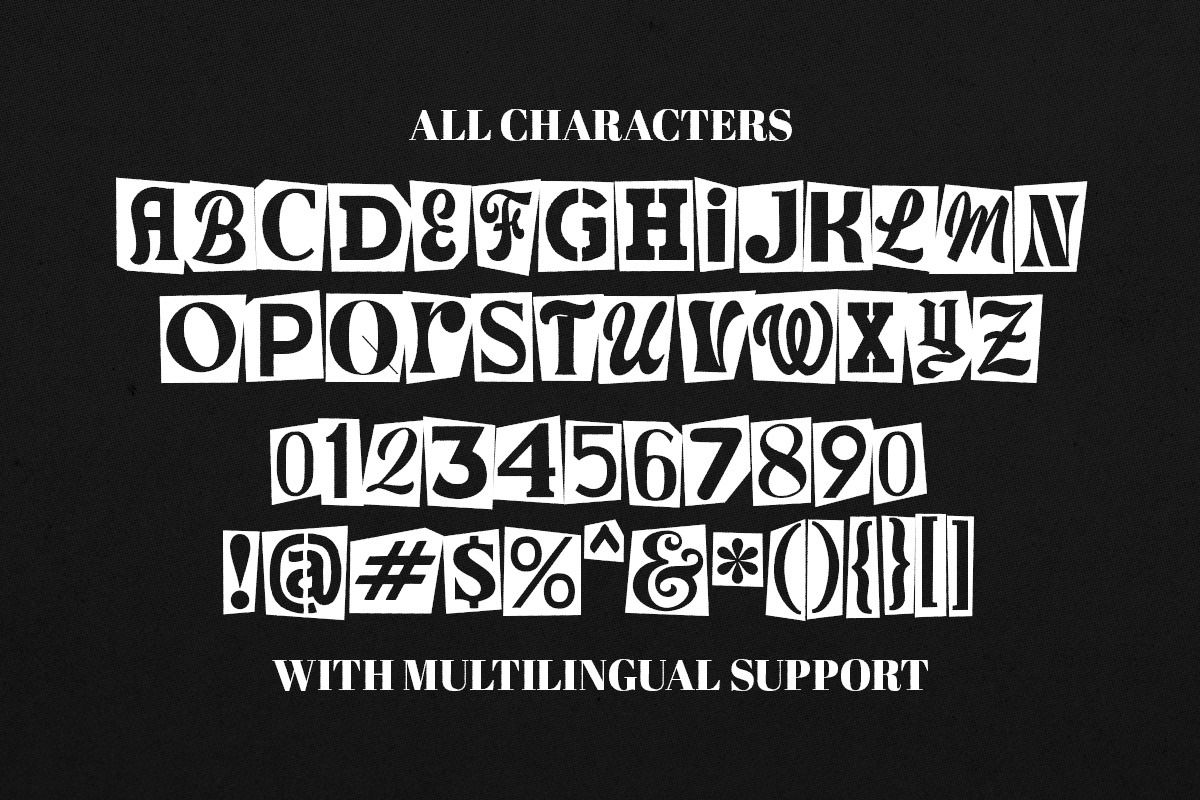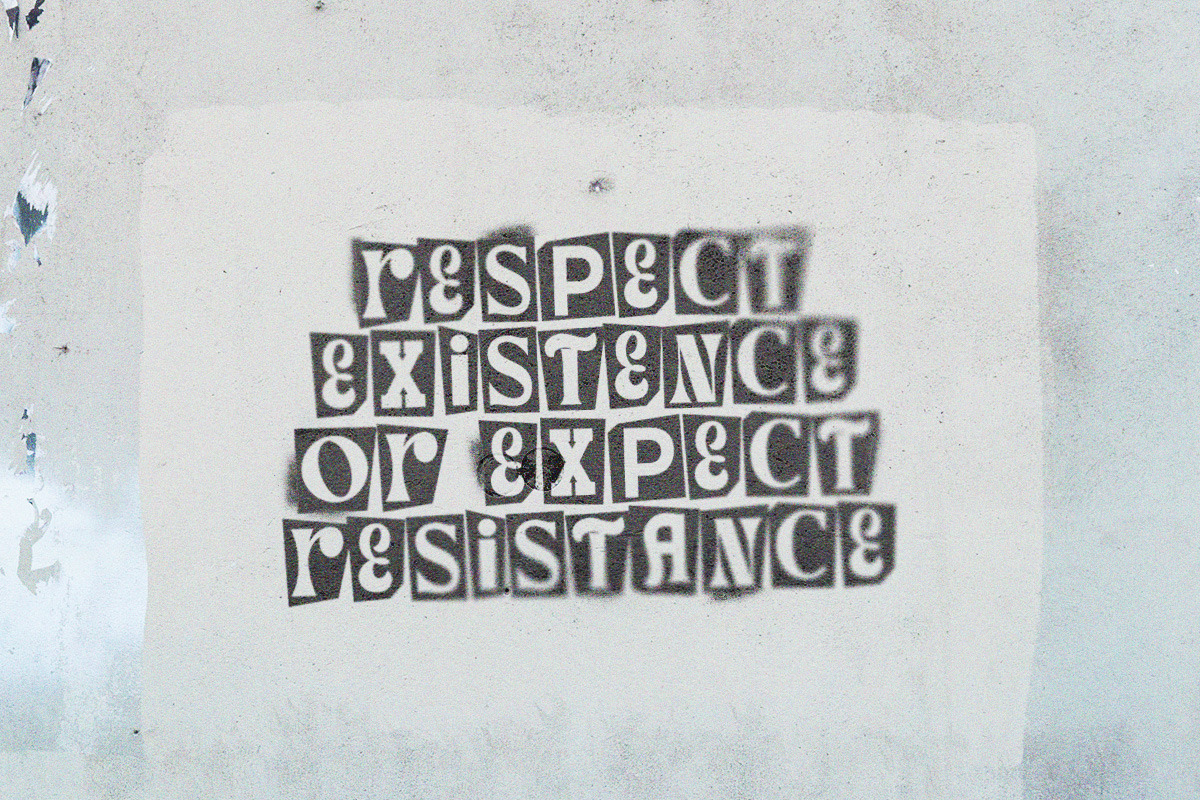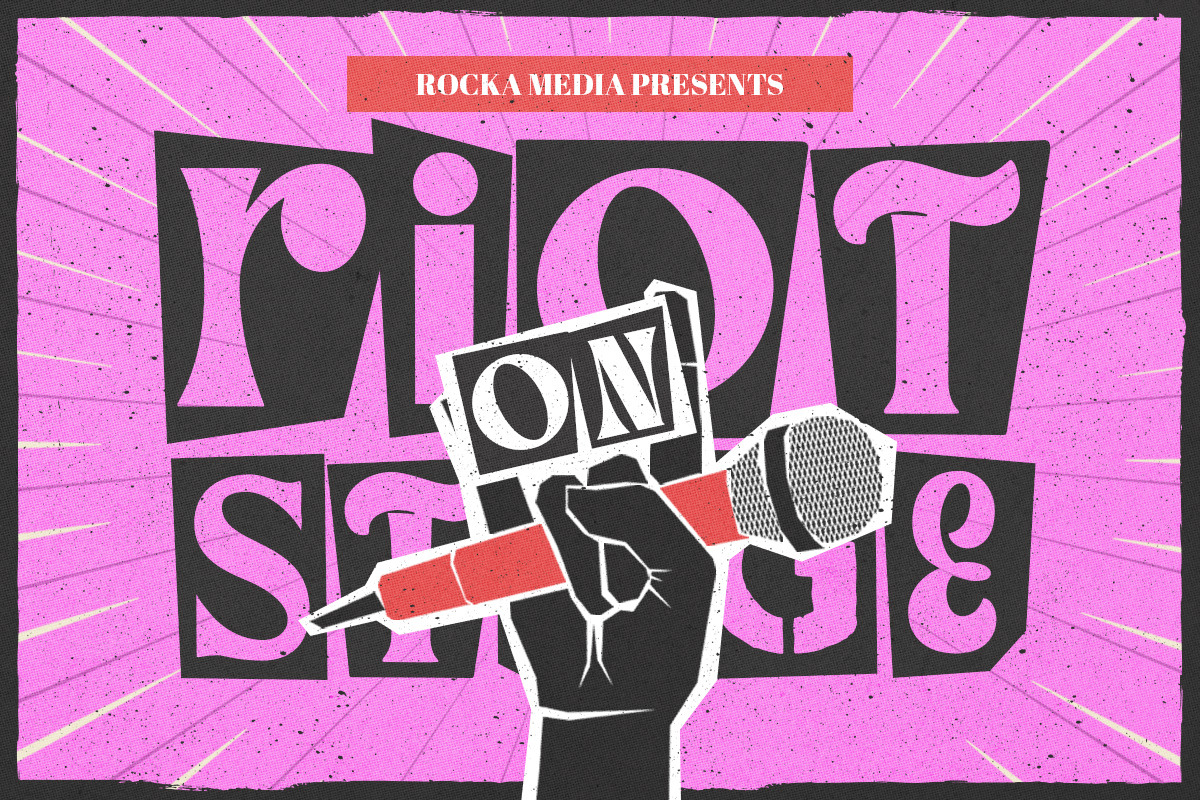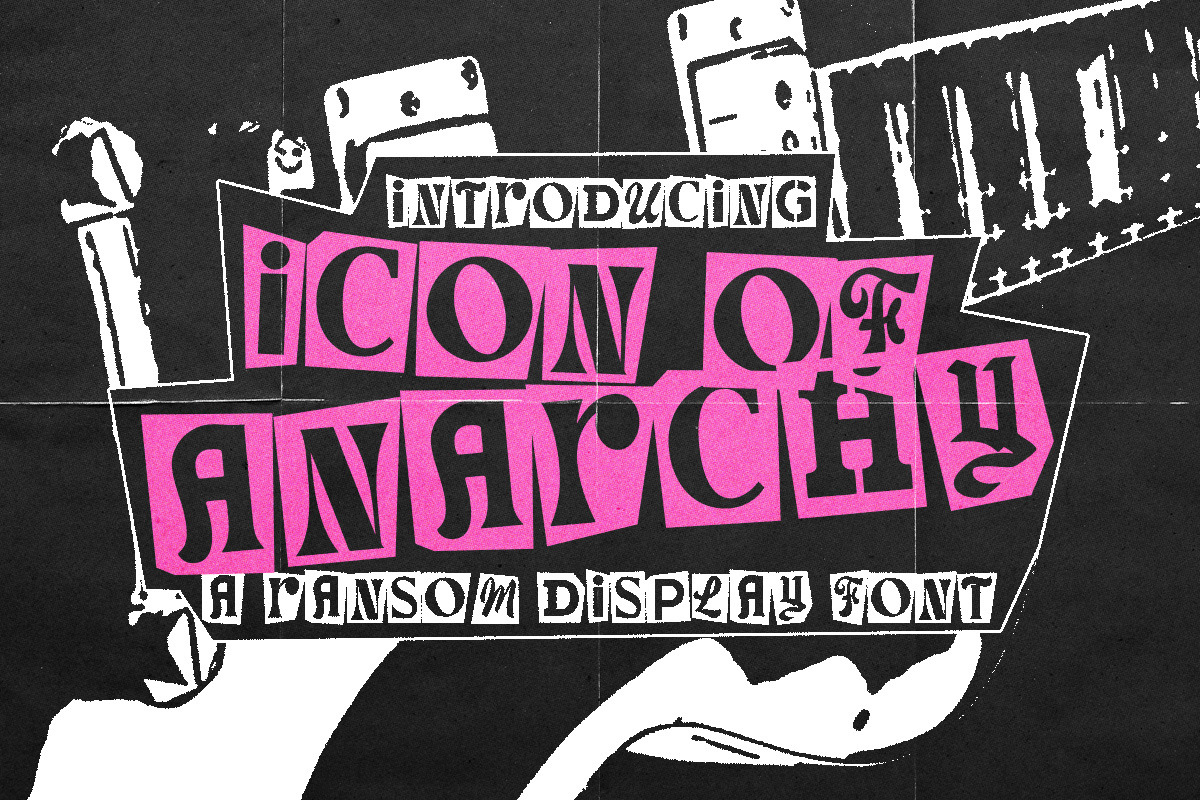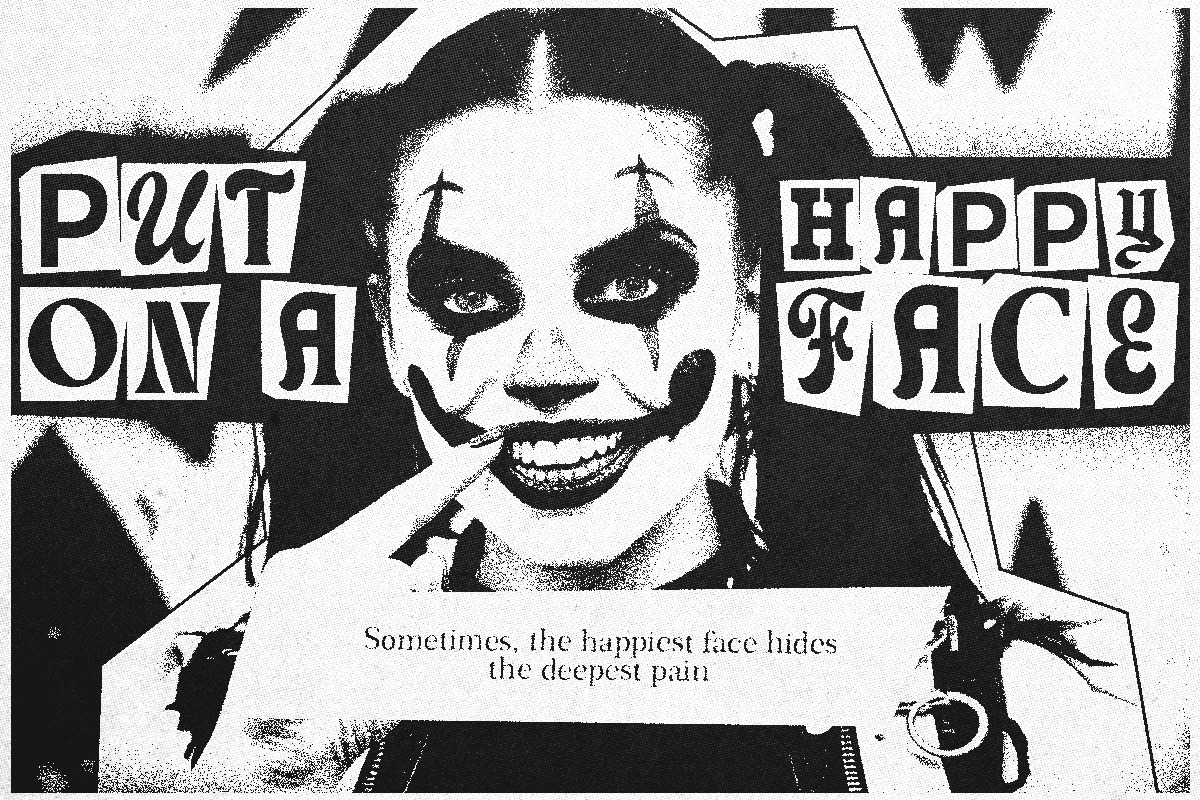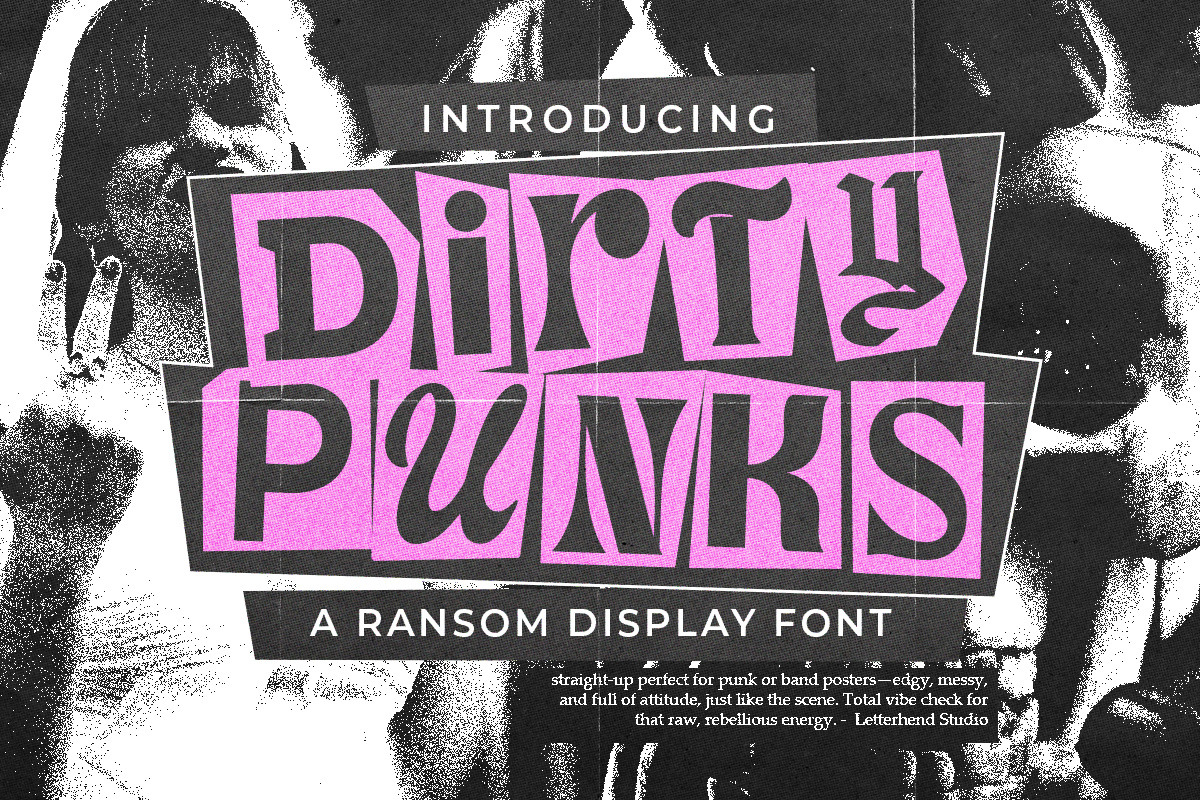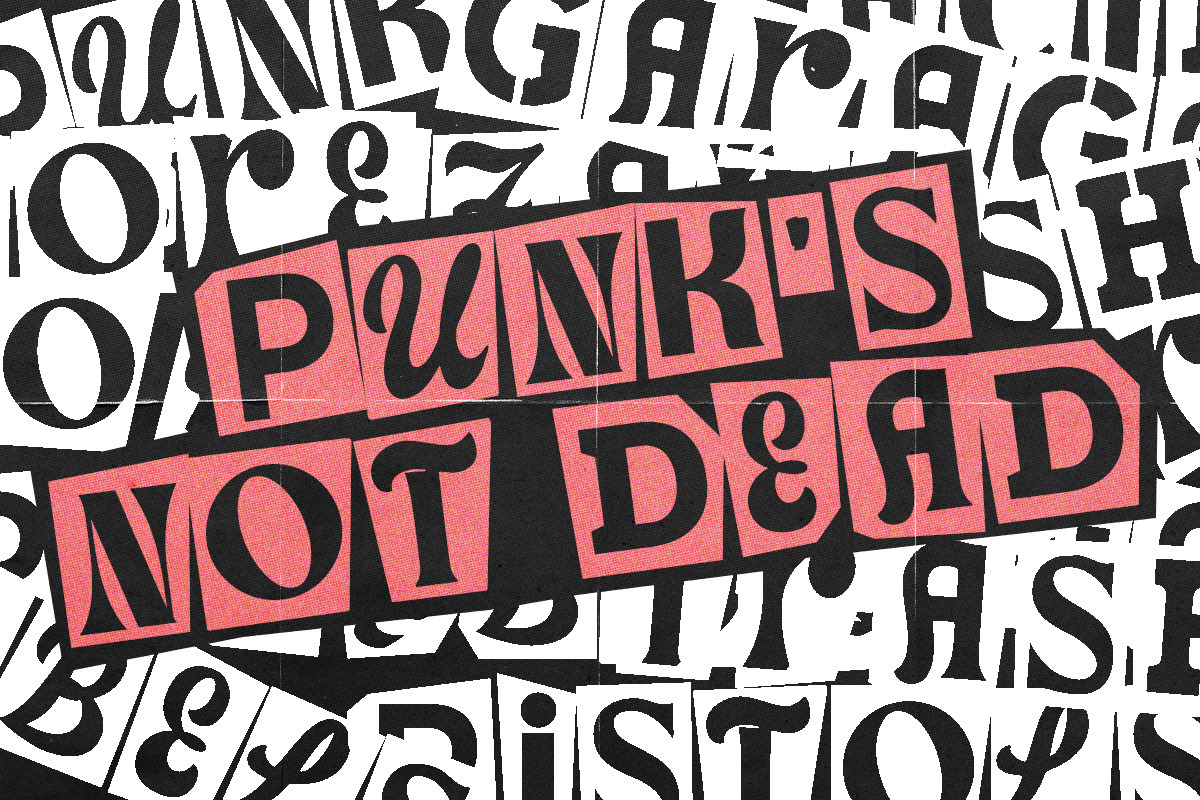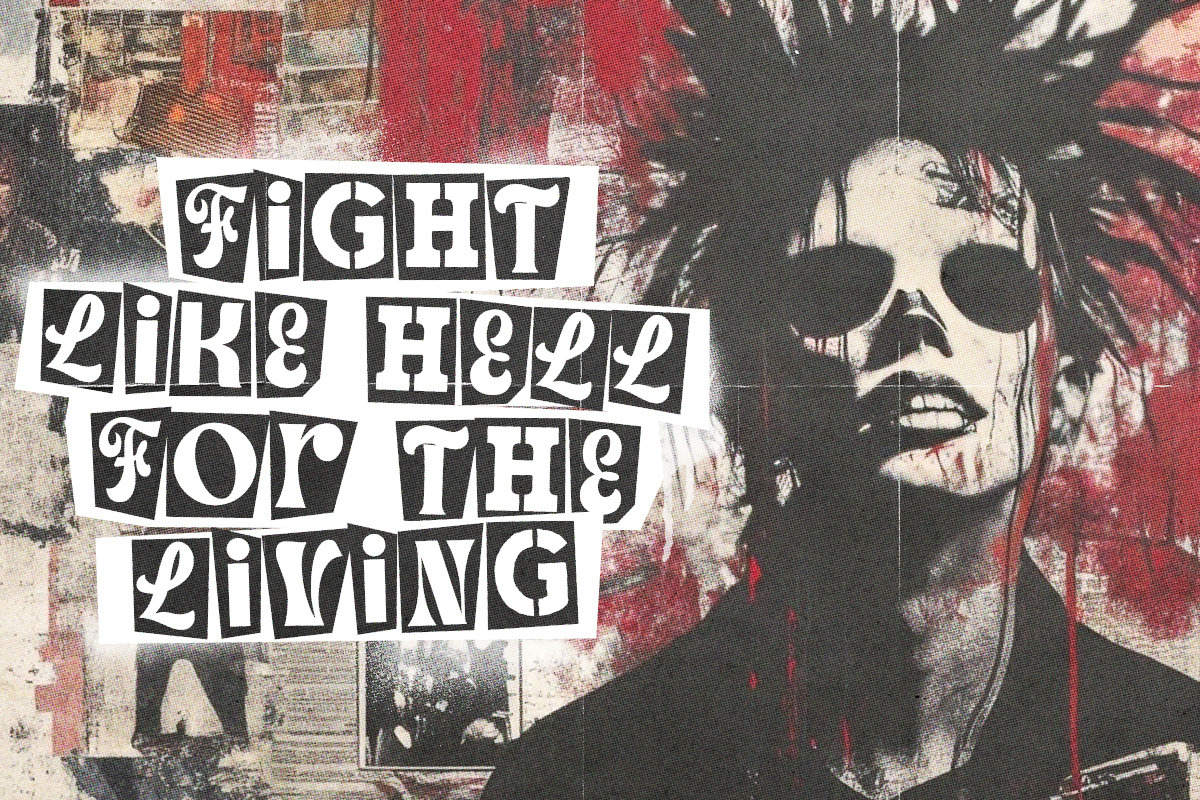
Dirty Punk - Randsom Display Font
Dirty Punk captures the energy of punk vibes with its cut-and-paste letterforms. The combination of upper and lowercase letters offers flexibility in creating unique designs that break traditional rules. This font is perfect for logos, bold advertising, zines, album covers, and other creative works that need a rebellious, DIY touch. It’s also great for adding a nonconformist flair to formal items like stationery, packaging, and event invitations.